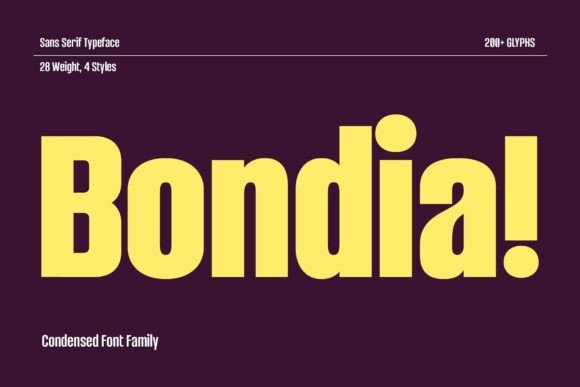
Bondia Font: Elevate Your Design with a Versatile Condensed Sans Serif
In the realm of typography, the right font can make all the difference in elevating your design from ordinary to extraordinary. Bondia Font, a versatile condensed sans serif, has emerged as a game-changer in the world of graphic design. Merging elegance, strength, and modern appeal, Bondia offers a unique blend of style and functionality that caters to a wide range of design needs.
A Closer Look at Bondia Font
Bondia is designed to make an impact without compromising on readability. This sleek and modern font comes in 7 weights and 4 styles, providing designers with the flexibility to choose the perfect variation for their project. Whether you’re working on branding, posters, editorial layouts, product packaging, or digital content, Bondia’s versatility ensures that it can adapt to any design requirement.
Key Features of Bondia Font
- 7 Weights and 4 Styles: From light to bold, Bondia offers a range of weights and styles to suit various design applications.
- Sleek and Narrow Structure: Bondia’s condensed design gives it a sporty and futuristic look, perfect for creating bold and stylish visuals.
- Elegance and Strength: The font seamlessly merges elegance and strength, making it suitable for both high-end branding and edgy digital content.
- Readability: The lighter to semibold weights ensure clean and readable body text and subtext, while the bolder weights bring a powerful presence to headlines and statement pieces.
Exploring Design Applications for Bondia Font
Bondia’s adaptability makes it an excellent choice for a variety of design projects. Here are some of the ways you can utilize Bondia to elevate your designs:
Branding and Logo Design
Bondia’s sleek and modern aesthetic makes it an ideal choice for branding and logo design. Its condensed structure and range of weights allow you to create a strong visual identity that stands out.
Posters and Editorial Layouts
For posters and editorial layouts, Bondia’s bold weights can be used to create striking headlines, while the lighter weights ensure that body text remains clean and readable.
Product Packaging
Bondia’s sporty and futuristic look makes it a great fit for product packaging, especially for brands that want to convey a sense of modernity and sophistication.
Digital Content
In the digital realm, Bondia can be used to create bold and stylish visuals for websites, social media, and advertising campaigns. Its condensed structure ensures that your message stands out, even in a crowded online space.
Typography Tips for Using Bondia Font
To get the most out of Bondia, consider the following typography tips:
Mix and Match Weights
Experiment with different weights and styles to create visual hierarchy and add depth to your design.
Pay Attention to Kerning
As with any font, proper kerning is essential to ensure that your text remains readable and visually appealing.
Use Bondia for Headlines and Body Text
Bondia’s versatility makes it suitable for both headlines and body text. Use the bolder weights for headlines and the lighter weights for body text to create a cohesive look.
In conclusion, Bondia Font is a versatile and modern condensed sans serif that offers a unique blend of elegance, strength, and style. Its range of weights and styles, combined with its sleek and narrow structure, make it an excellent choice for a wide range of design applications. Whether you’re working on branding, posters, editorial layouts, product packaging, or digital content, Bondia is sure to elevate your design and add a sharp, contemporary edge.